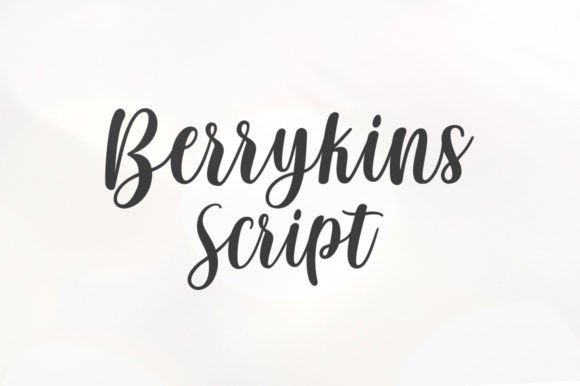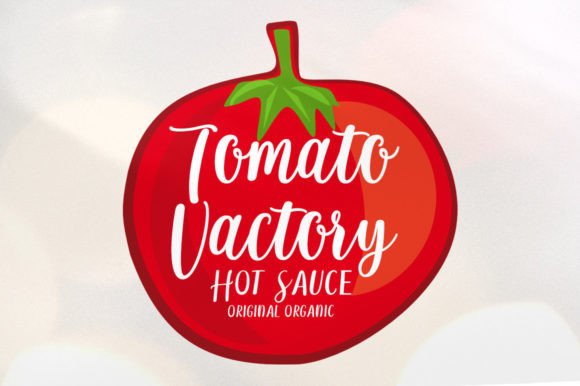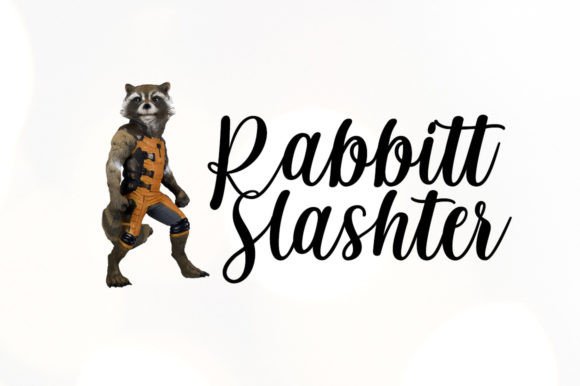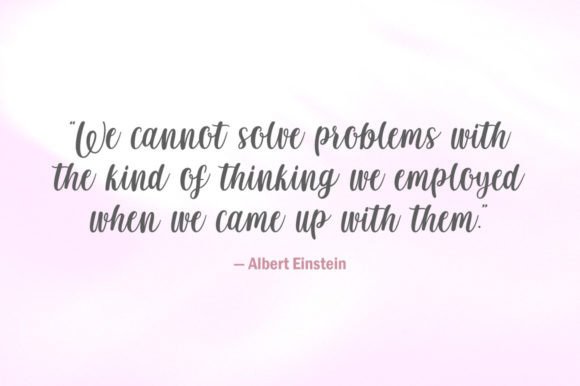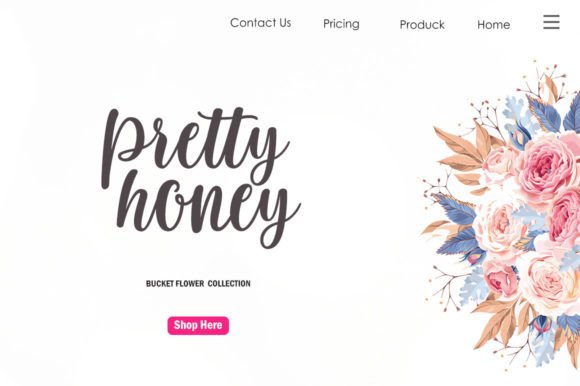
Berrykins Script Font
A Versatile and Skillful Handwritten Script Font
The Berrykins Script Font is a versatile and skillful handwritten typeface that brings a personal touch to your designs. Its straightforward style and elegant script make it perfect for a wide range of creative applications. Whether you’re working on projects, products, crafts, or personalization, the Berrykins Script Font offers a unique handwritten flair that adds warmth and style to your work.
Ideal for Projects and Personalization
Whether you’re designing for projects or personalization, the Berrykins Script Font is an excellent choice. Its clean and legible script ensures your text stands out, whether you’re working on custom invitations, crafts, or gift tags. The font’s straightforward design gives it a classic and elegant feel, making it perfect for a variety of creative endeavors that require a personal touch.
Perfect for Invitations and Celebrations
The Berrykins Script Font is perfect for creating invitations for weddings, parties, or any celebration. Whether you’re designing for a New Year’s celebration or a birthday party, this font adds a touch of elegance and warmth to your invitations. Its flowing letters and stylish design give your event a unique and inviting feel, making it a great choice for custom stationery and celebration materials.
Great for Products and Craft Designs
For product designs and craft projects, the Berrykins Script Font offers a clean and charming style that’s perfect for labels, packaging, and stationery. Whether you’re working on personalized gifts, holiday crafts, or branding for small businesses, this font ensures your designs feel unique and inviting, making it a great choice for handmade goods or custom products.
Elegant, Readable, and Timeless
The Berrykins Script Font is not only elegant but also readable. Its smooth strokes and well-balanced design ensure that your text remains legible, even when used for longer passages or smaller sizes. Whether you’re using it for headlines, captions, or full-body text, this font provides the perfect combination of beauty and clarity, making it suitable for a variety of design projects.
Add Elegance and Personalization to Your Designs with Berrykins Script Font
If you’re looking for a straightforward, skillful, and versatile handwritten font to enhance your designs, the Berrykins Script Font is the perfect choice. Whether you’re working on projects, products, crafts, or invitations, this font adds a personal, elegant touch to your work. Let the Berrykins Script Font bring warmth, style, and personality to your projects and help you create memorable designs that stand out.